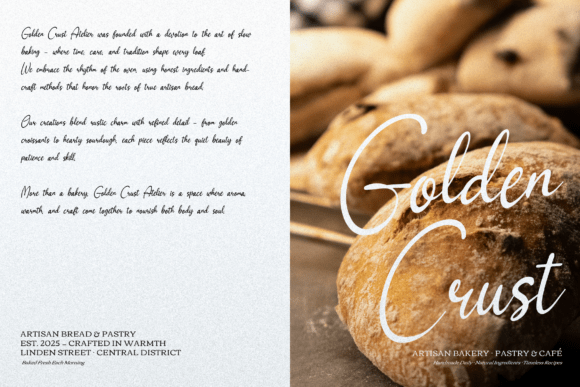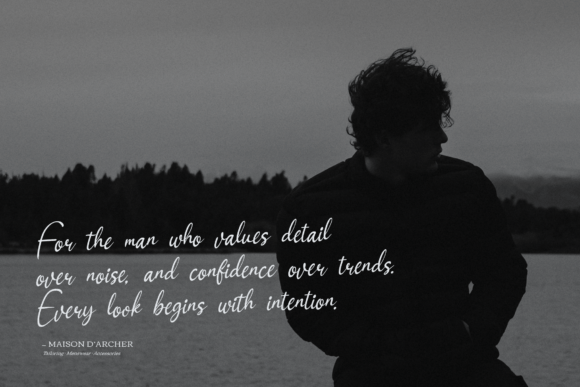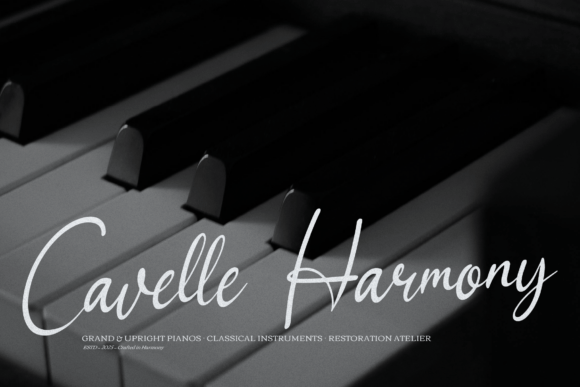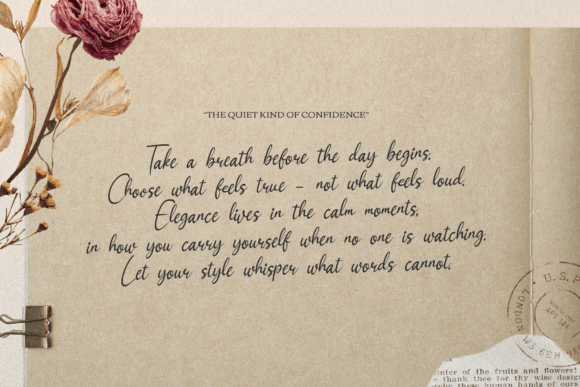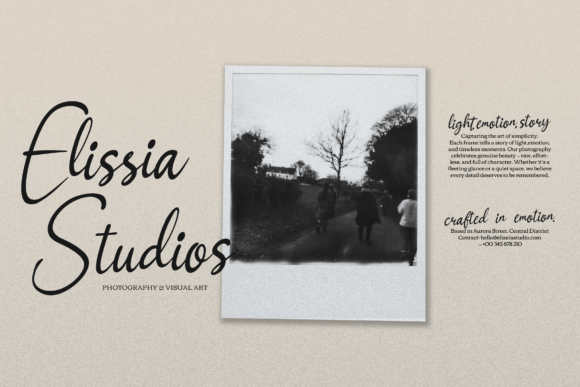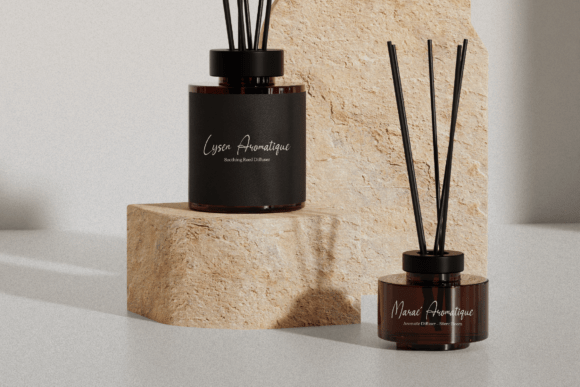
Introduction to Lossifanya Font
Lossifanya is a graceful handwritten script font that brings a poetic, personal touch to your creative work.
Crafted with elegance and fluidity in every stroke, this font is perfect for romantic projects, branding, wedding stationery, book covers, and sophisticated editorial designs What makes Lossifanya stand out is its beautifully balanced contrast between soft curves and precise structure.